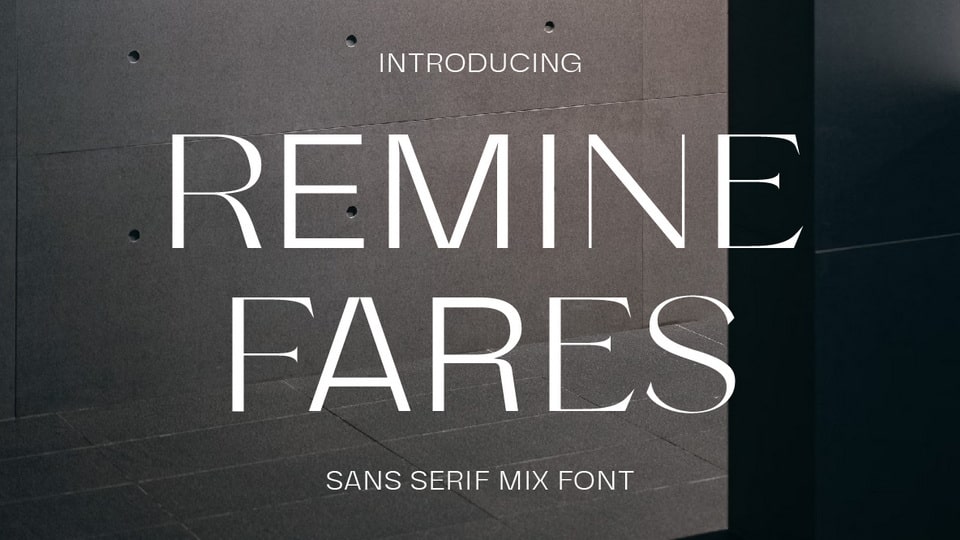
Download Remine Fares font, a mixed typeface that combines the uniqueness and beauty of two different font styles, namely sans serif and serif, in one harmonious font. With this combination, Remine Fares font provides flexibility and unlimited possibilities in expressing creativity and creating attractive design looks.